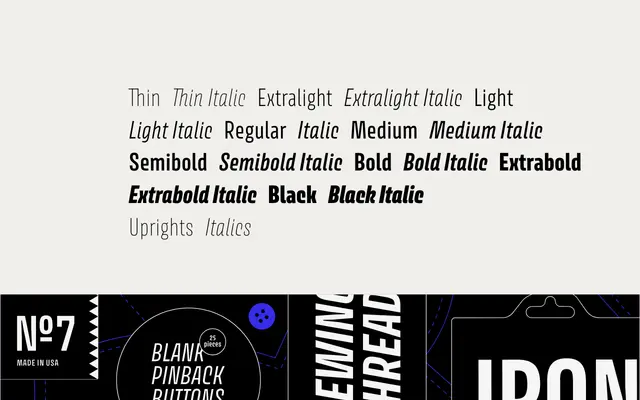
Avory PE
A gently condensed humanist sans inspired by the mid-century Czech lettering of Jaroslav Benda, with a low optical centre, wide horizontal crossbars and alternating open or closed counters.
Tall proportions with broad shoulders make it distinctive at a distance, while an array of alternate forms gives designers control over descenders and counter openness. The family spans nine weights with matching italics and variable font versions for both uprights and italics, covering Latin, Cyrillic and Greek scripts with localised forms for cultural appropriateness. An underscore feature adds a vintage lettering feel suited to labels and shop signage.
Gently condensed with lettering-inspired details, a low optical centre, wide horizontal crossbars, and expressive terminals rooted in mid-century Czech graphic lettering tradition, placing it firmly in the humanist sans subcategory.